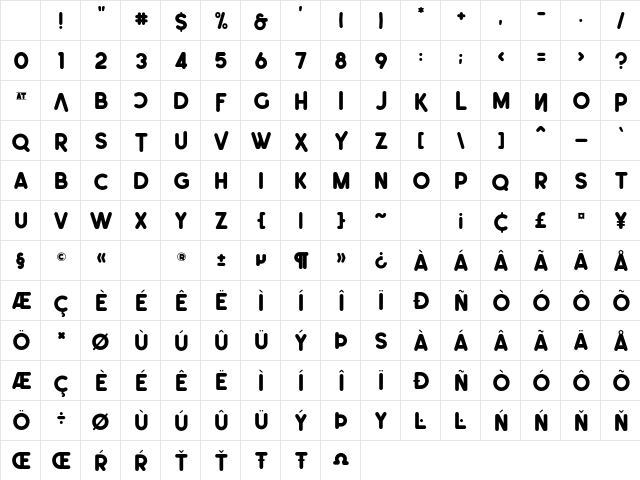
Complete Leonardo-Rounded Demo glyph index. Displaying only characters natively supported by Leonardo-Rounded Demo font.
Leonardo-Rounded softens its letterforms with rounded terminals, giving it an approachable, friendly quality that works well in consumer-facing and digital contexts.
Font Pairing: Pairs well with a rounded or humanist sans for body copy, maintaining the friendly tone without relying on Leonardo-Rounded to carry extended reading.
Pro Tip: Use Leonardo-Rounded for UI elements, app interfaces, and anywhere a friendly, approachable tone needs to be maintained without sacrificing clarity.